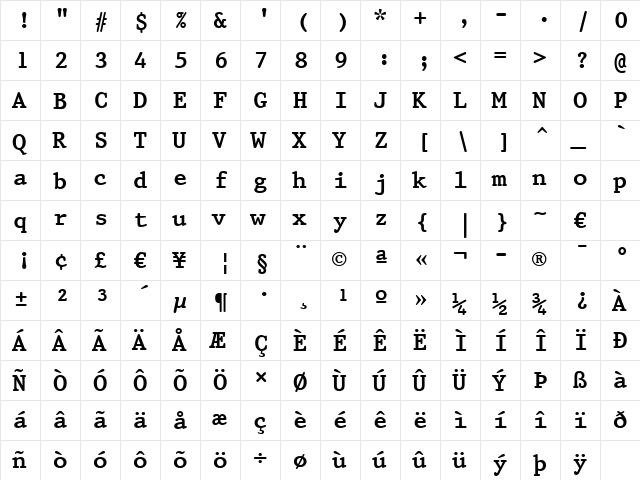
Prestige12 BT Bold
Design Context for Prestige12 BT Typeface
Prestige12 BT offers clean, dependable letterforms without strong stylistic allegiance, making it a practical choice for designers who need flexibility. Its bold stroke weight gives it real presence on the page.